75 font statistics: usage and market analysis
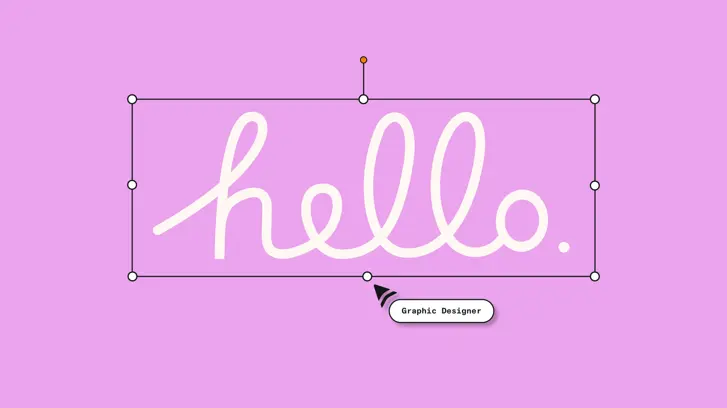
A font is a specific style or design of text characters, including letters, numbers, symbols, and punctuation marks, used to display text on a computer screen or in printed materials. Fonts define the appearance of text elements, such as typefaces, size, weight (boldness), style (italic or regular), and other attributes like spacing and kerning.
Fonts are crucial in graphic design, typography, and communication because they convey different emotions, aesthetics, and meanings. Millions of different fonts are available, each with unique characteristics and intended uses.
Some fonts are designed for readability and are commonly used for body text in documents, while others are more decorative and are used for logos, headlines, or artistic purposes.
General font statistics
Fonts play a pivotal role in daily communication, shaping how we perceive and interpret text. From elegant scripts to bold block letters, each font carries its own character and purpose. Understanding fonts is essential in design, branding, and effective communication. This section explores fonts' fascinating world, history, and impact in various fields.
- The most commonly used fonts in print are Times New Roman, Helvetica, and Arial.1
- Over 60% of websites use custom or non-system fonts.2
- Serif fonts are generally considered better for print media due to their readability and can increase reading speed by up to 15%.3
- Sans-serif fonts are preferred on mobile devices for their clarity and readability on small screens.1
- The global font market is expected to grow annually by approximately 4.5%.4
- Emails with a sans-serif font have a higher open rate than serif fonts.1
- About 80% of professional designers pay for font licenses.5
- Google Fonts are used on over 50 million websites.6
- Consistent use of a specific font can increase brand recognition by up to 80%.5
- Around 70% of Fortune 500 companies use sans-serif fonts in their logos.7
- Font type can impact reading comprehension by up to 10%.8
- Fonts like 'Ecofont' can save up to 20% on ink usage compared to standard fonts.9
- About 10% of professional designers have started using variable fonts in their projects.10
- Approximately 15% of graphic designers spend over $100 annually on font purchases.11
- A typical graphic designer uses between 5 and 20 different fonts in their projects.11
- Serif fonts can increase the length of a document by up to 10% compared to sans-serif fonts.12
- The global typeface market is estimated to be worth over $1 billion.13
- Studies show that sans-serif fonts increase legibility in car displays by 20%.14
- On average, web fonts can add an extra 100–300 milliseconds to a webpage's load time.15
- The font type can influence how readers perceive the message, impacting credibility and professionalism.1
Most popular web fonts
- Serif fonts are preferred in educational materials for their readability.1
- About 30% of websites consider font accessibility for visually impaired users.16
- Approximately 5% of websites use a handwriting-style font.17
- Sans-serif fonts are used in about 80% of user interface designs.18
- The publishing industry uses an average of 15 different fonts across various publications.18
The world of fonts is more than just a collection of styles and designs; it's a crucial tool for effective communication and branding. The ideal font can transform a message, imparting personality and clarity. Understanding how to select and apply fonts is critical to maximizing their impact. This knowledge is beneficial and essential for anyone looking to make a lasting impression in the visual world.
Font usage statistics
These statistics highlight prevailing trends in font usage and underscore the strategic importance of font selection to enhance readability, accessibility, and overall communication effectiveness.
- Google's Roboto, Open Sans, and Lato fonts are among the most widely used on the web.19
- Over 65% of top ecommerce sites use custom fonts for branding.20
- Sans-serif fonts are used in over 75% of digital advertisements for readability.21
- Approximately 70% of small businesses prefer using traditional fonts like Times New Roman and Arial for official documents.22
- About 80% of mobile apps use system default fonts for compatibility and performance.23
- Serif fonts like Times New Roman and Georgia are preferred in over 60% of eBooks.23
- Over 50% of Fortune 500 companies use custom fonts for branding.7
- Studies show that a good font choice can improve user experience by up to 40%.24
- Around 85% of corporations have a dedicated budget for font licensing.25
- Serif fonts are used in about 70% of print newspapers for better readability.25
- Marketers report a 30% increase in consumer engagement when using brand-consistent fonts.25